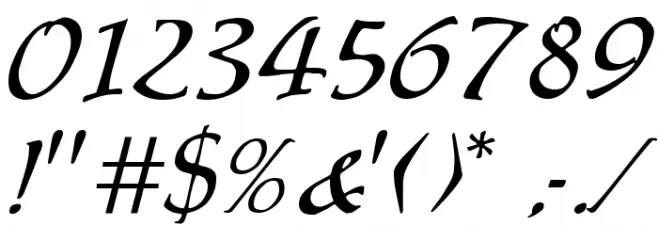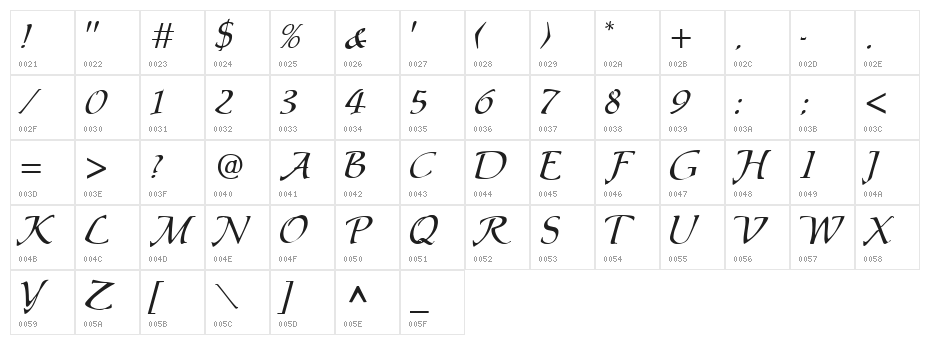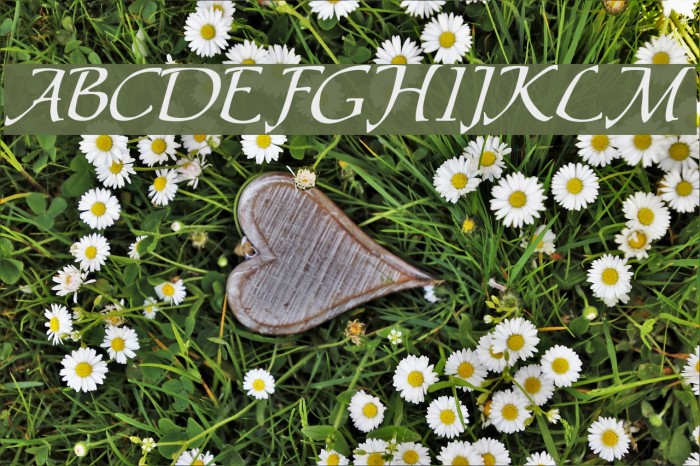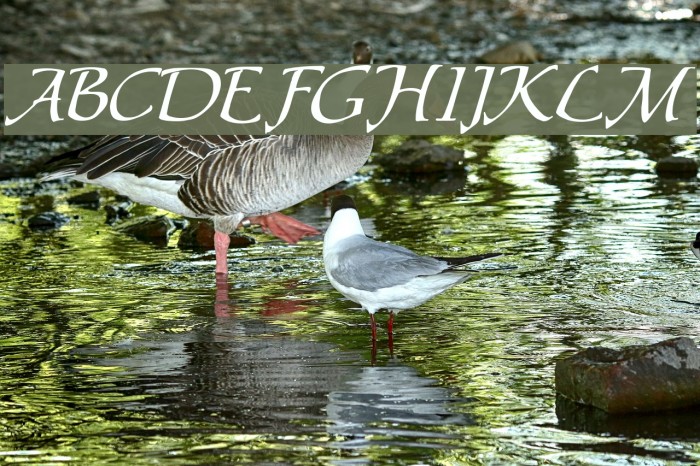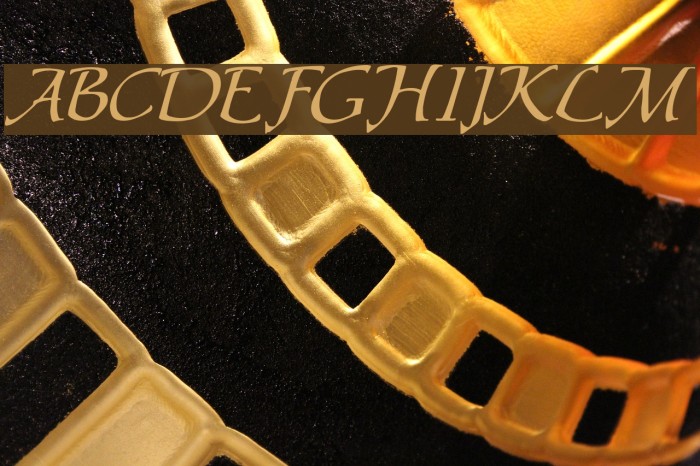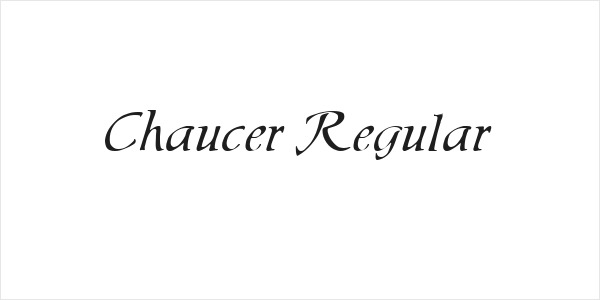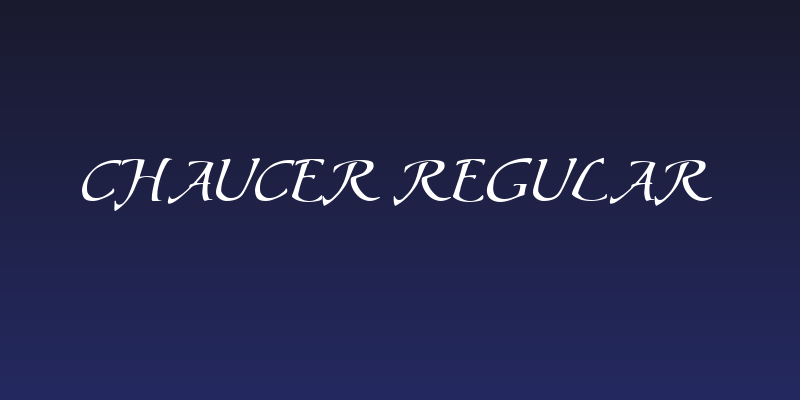
Chaucer Regular Font
Chaucer Regular Description
This font exhibits a classic and elegant style, reminiscent of traditional calligraphy with a modern twist. The characters are gracefully slanted, adding a sense of movement and sophistication. The uppercase letters are bold and commanding, while the lowercase letters maintain a delicate balance, offering a harmonious blend of strength and elegance. The numerals are distinct and easily readable, complementing the overall aesthetic. Special characters are thoughtfully designed, maintaining the font's cohesive style. This font's unique character shapes and flowing lines make it suitable for a variety of creative applications.